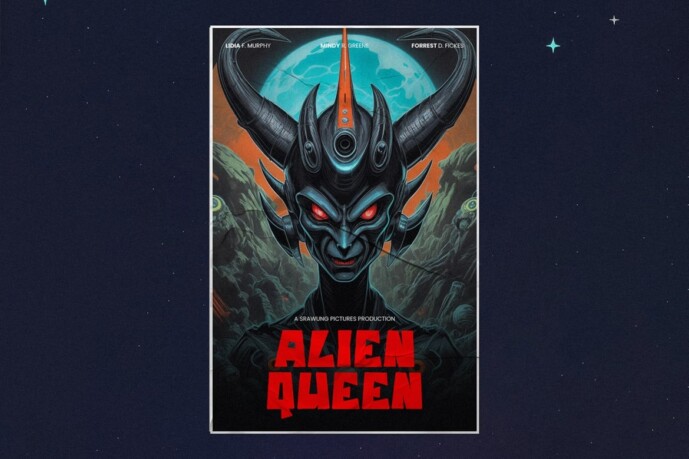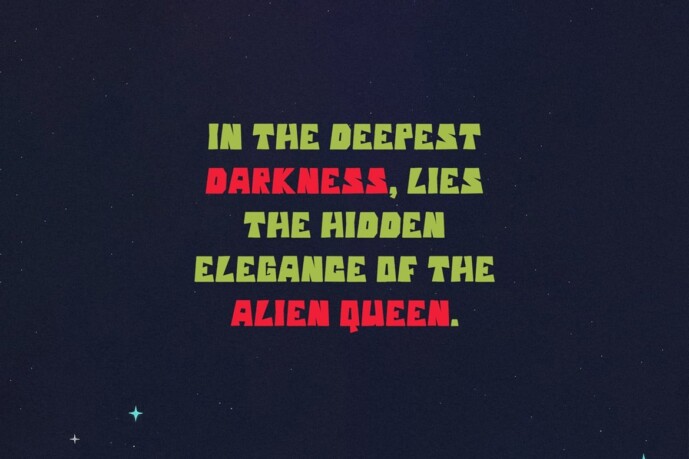
Chunky Charm Font
Chunky Charm Font: This is the latest Display font from us, ideal for your work presentations such as blog design, modern design, web design, invitation cards, etc.